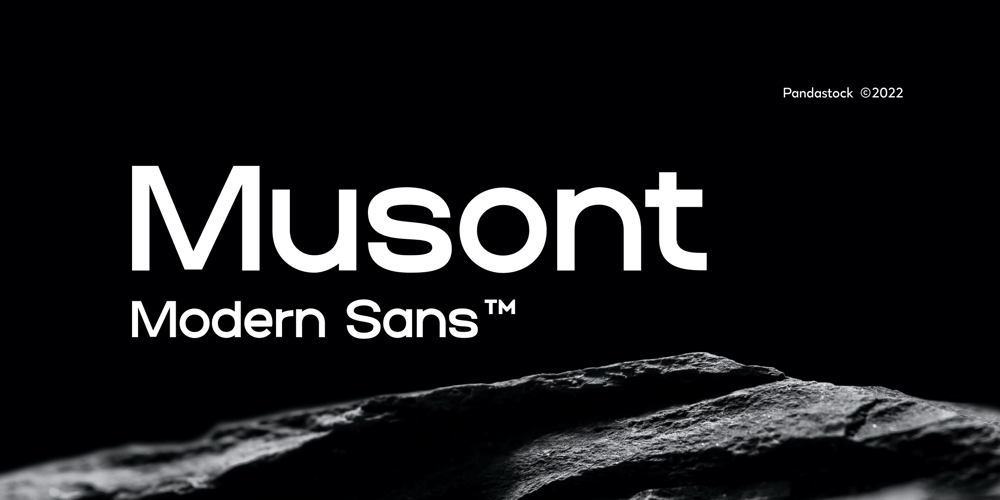
Musont Font Family was designed by Aulia Savira Putri and published by Pandastock. Musont contains 1 styles and family package options. Musont is an elegant sans serif fonts with visual elegance, smooth curves, and beautiful ligatures clear, making your work look true and attractive.A very versatile font that works in both large and small sizes. This font is suitable for a wide variety of projects such as invitations, logos, branding, magazine, photography, card, product packaging, mugs, quotes, poster, labels, signatures, and more.Font which is perfect for all business sectors including personal projects, studio, corporate, creative agency, industrial, company, etc.